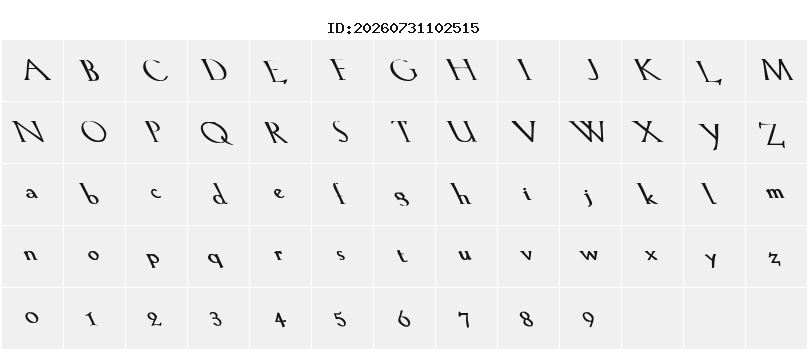
Lilith-Light bOLD Lefty Preview
• Font Name: Lilith-Light bOLD Lefty
• Full Font Name: Lilith Light bOLD Lefty Bold
About Lilith-Light bOLD Lefty.ttf
Lilith-Light bOLD Lefty.ttf is a modern, elegant sans-serif font designed for ultimate readability and visual harmony. Perfect for branding, headlines, web design, and print materials.